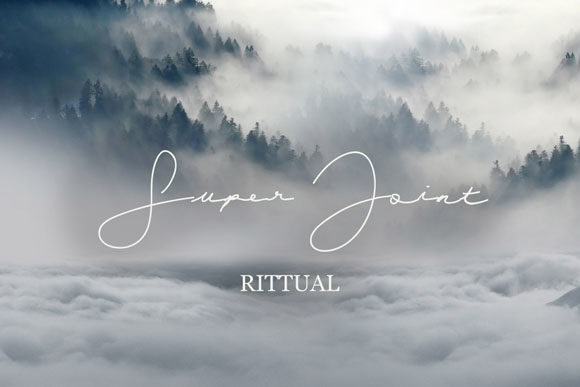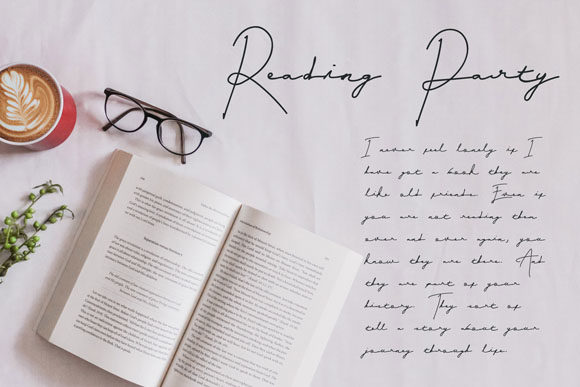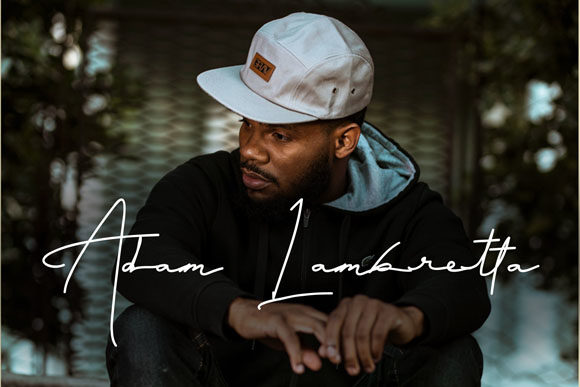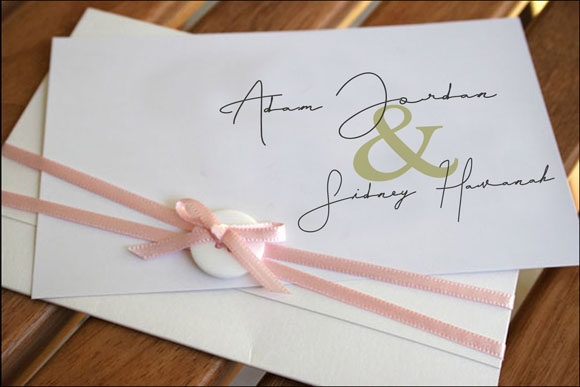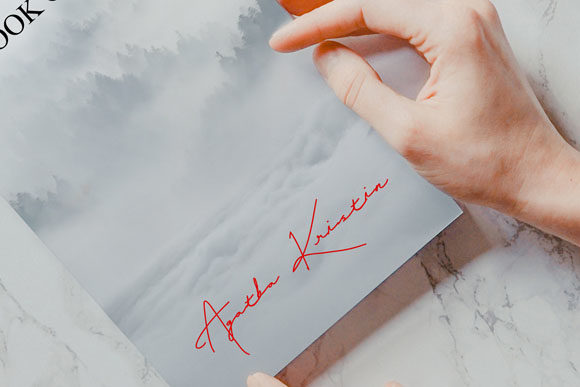
Introduction to Gellattik Font
Have you ever stared at a blank canvas, eager to unleash your creativity, but struggling to find the perfect font to bring your vision to life? We’ve all been there. But what if you stumbled upon a font that not only adds a touch of whimsy to your design but also elevates it to a whole new level? Enter the Gellattik Font, a delightful handwritten font that’s sure to turn any design project into a showstopper.
As a designer, you know the value of having high-quality design resources at your fingertips. The Gellattik Font is a treasure trove of creative possibilities, offering a unique feel that’s perfect for adding a personal touch to your work. Whether you’re working on a free download project or a commercial design, this font is sure to impress. And with its transparent background, you can easily integrate it into any design without compromising on quality.
Key Features of Gellattik Font
- High-quality design resource with a unique, futuristic aesthetic
- Transparent background, ideal for creative projects that require a clean and minimalist look
- Includes a range of weights and styles to suit different design needs
- Perfect for use in graphic design, digital art, and other creative projects
Honest Review: Gellattik Font
As a designer, I’m always on the lookout for high-quality design resources to elevate my creative projects. The Gellattik Font is one such resource that caught my attention, and I’m excited to share my honest review.
- The Gellattik Font offers a unique, modern aesthetic that can add a touch of sophistication to any design project.
- The font is highly versatile, suitable for a wide range of creative projects, from branding to editorial design.
- The transparent background option allows for seamless integration with other design elements.
- The font library is relatively small, which may limit its application in complex design projects.
- The font may not be as effective in text-heavy designs, as it can be quite ornate.
Overall, I’m impressed with the Gellattik Font’s unique design and versatility. While it may have some limitations, it’s a valuable addition to any designer’s toolkit. Whether you’re working on a high-end branding project or a creative editorial design, the Gellattik Font is definitely worth considering.
The Gellattik Font is ideal for creative projects that require a high-quality, modern font. Some common use cases include:
Tips for Getting the Most Out of the Gellattik Font
To get the most out of the Gellattik Font, consider the following tips:
- Use a transparent background to create a clean and modern look
- Experiment with different font sizes and styles to create visual interest
- Combine the Gellattik Font with other design elements to create a unique look